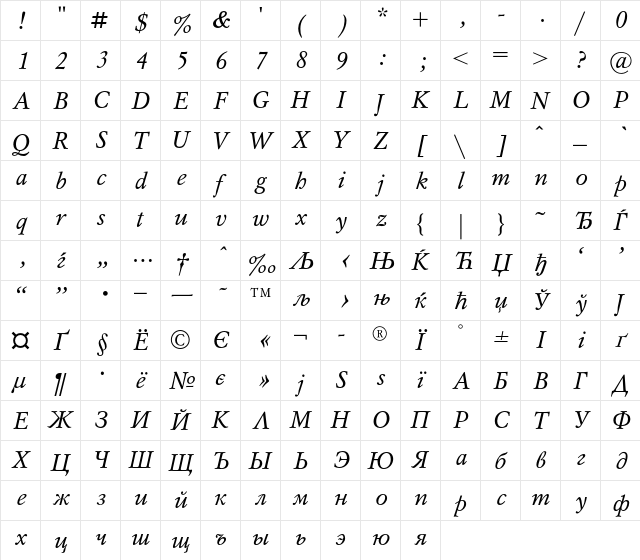
MyslC Regular
Design Context for MyslC Typeface
MyslC offers clean, dependable letterforms without strong stylistic allegiance, making it a practical choice for designers who need flexibility.